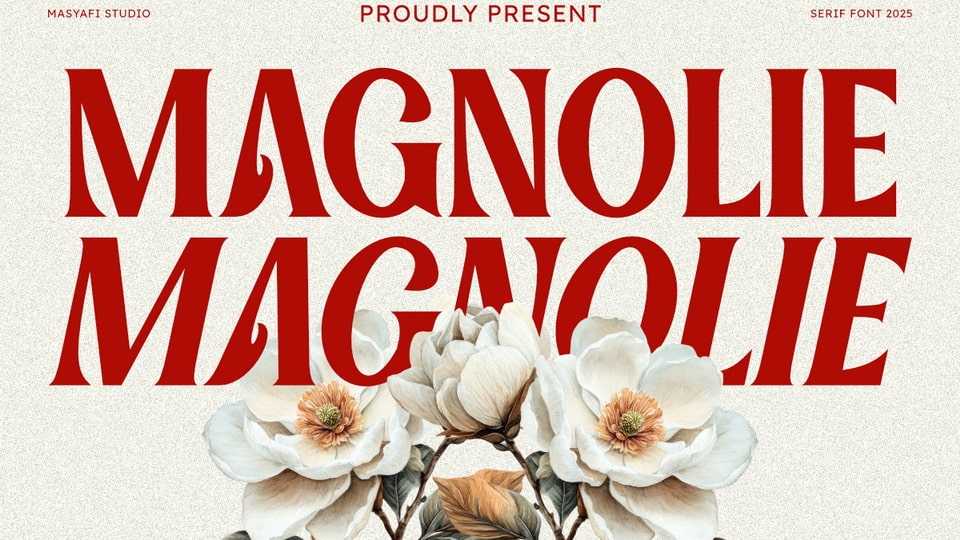
Download Magnolie font, a sophisticated serif typeface that embodies timeless elegance and a touch of modern flair. This typeface features gracefully crafted serifs and balanced letterforms.
Designer: Masyafi Studio